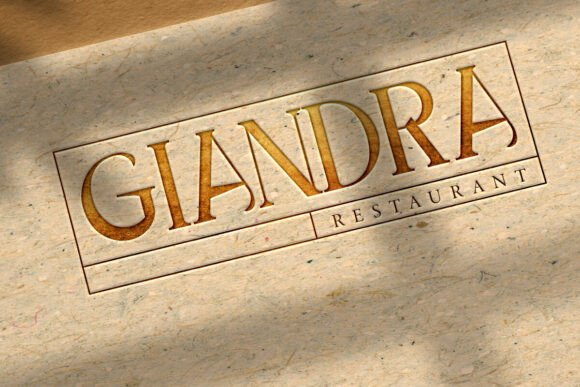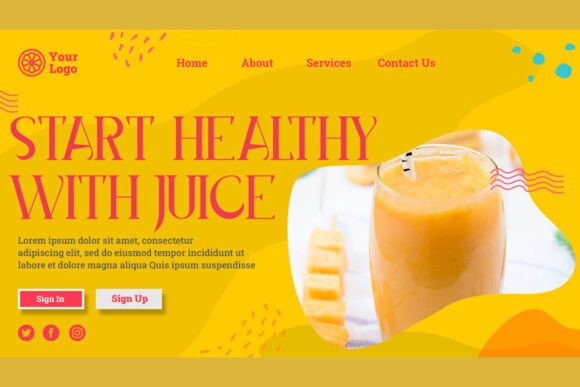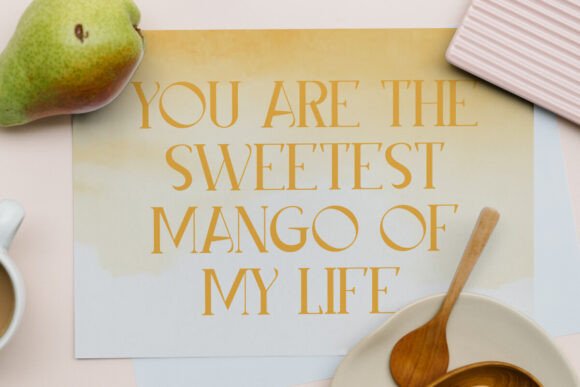
Java Mango Font
Java Mango Font is a vintage and stylish serif display font with a unique, vibrant. Useful in any design, including headlines, promotions, brand identity, corporate sign, cover, flyer, headline, invitation, label, logo design, notes, packaging design, postcards, poster, quotes, screen printing, signage, stationery, sticker, typographic design, website, and more.y.